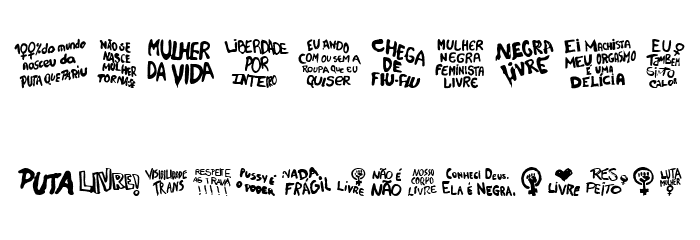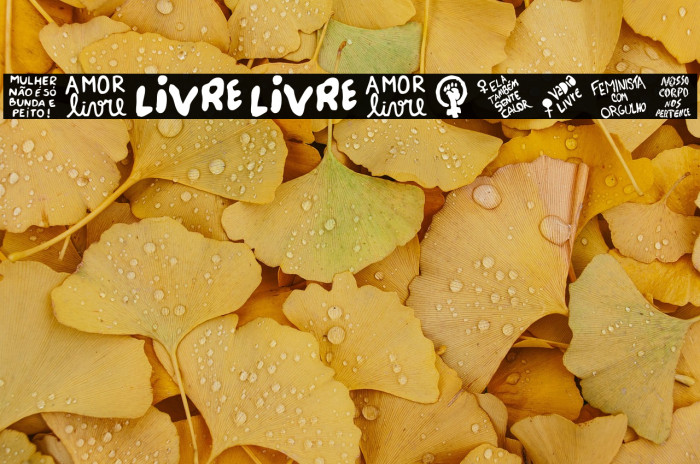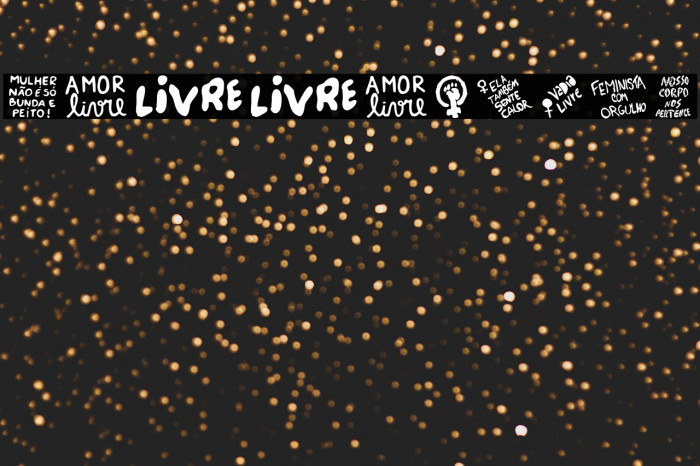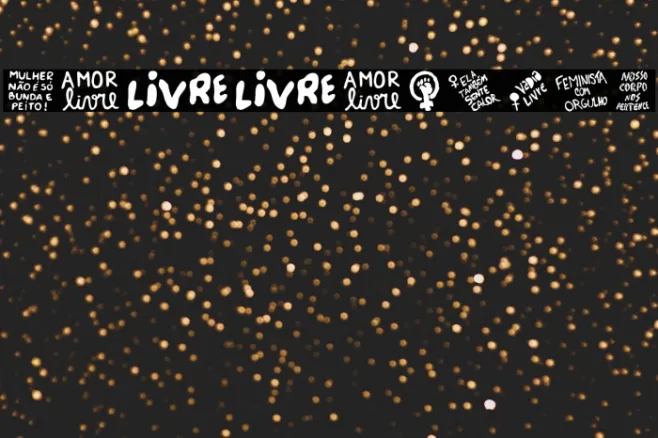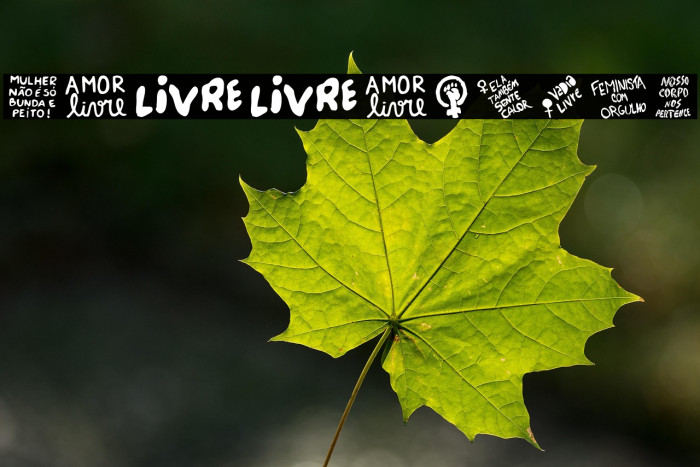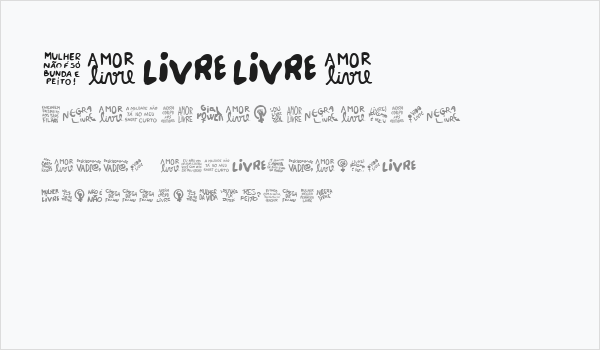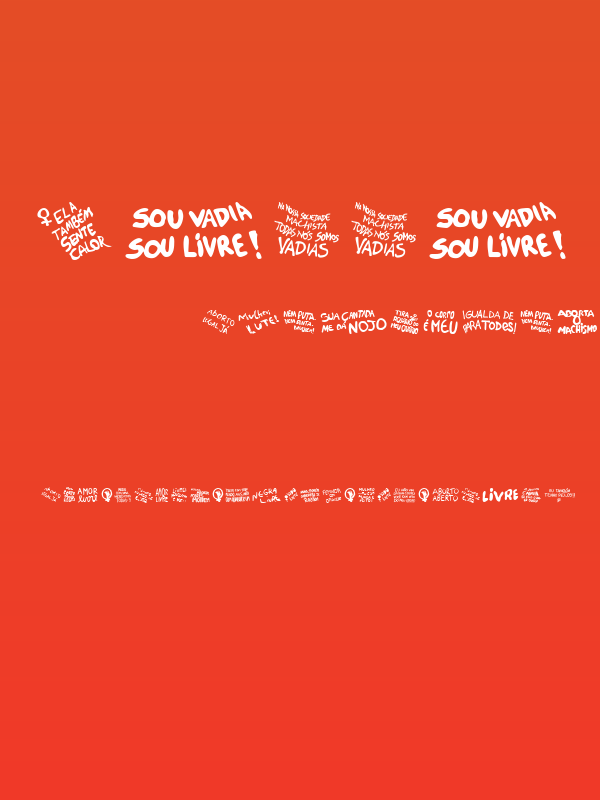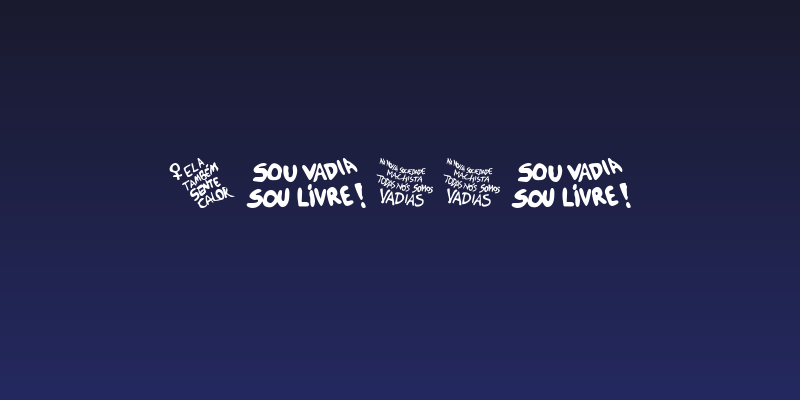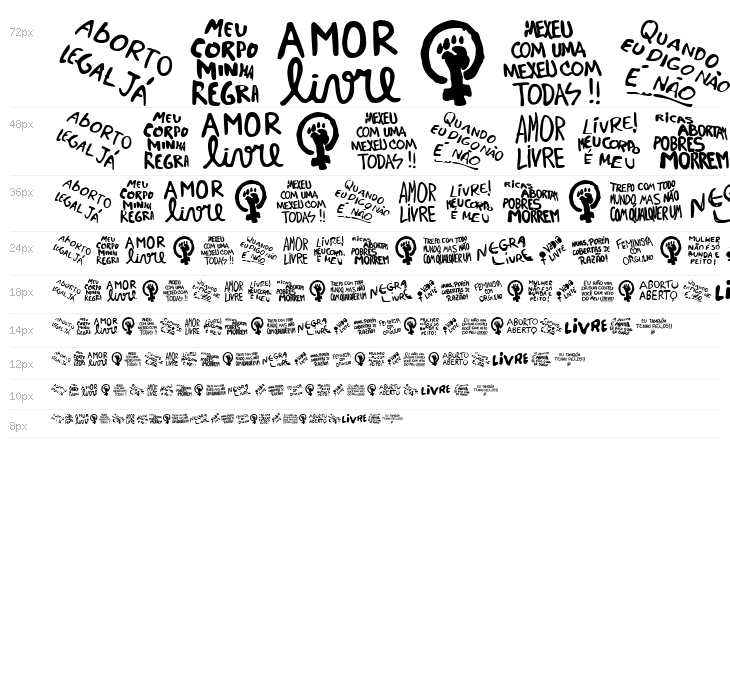
femme Font
femme Description
This font features a bold, expressive style with a hand-drawn appearance, conveying a sense of spontaneity and energy. The characters are unevenly shaped, with varying sizes and angles, creating a dynamic and informal look. The strokes are thick and irregular, adding to the font's raw and unpolished feel. This style is reminiscent of graffiti or street art, making it suitable for projects that aim to capture attention and convey a rebellious or unconventional message. The font's playful and chaotic nature makes it ideal for creative and artistic expressions.
Use CaseHeadlines, Artistic projects, Posters
Proposed ProjectsIdeal for posters, album covers, street art projects, and any design requiring a bold, expressive touch.